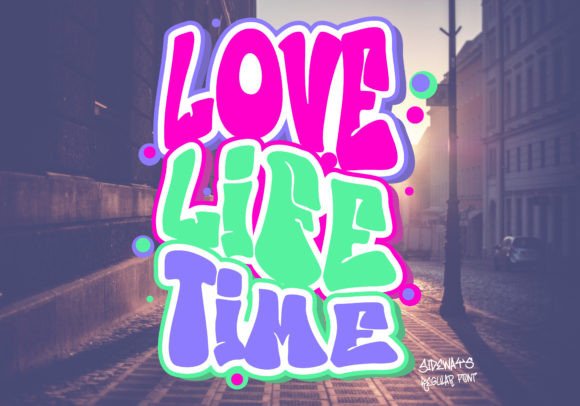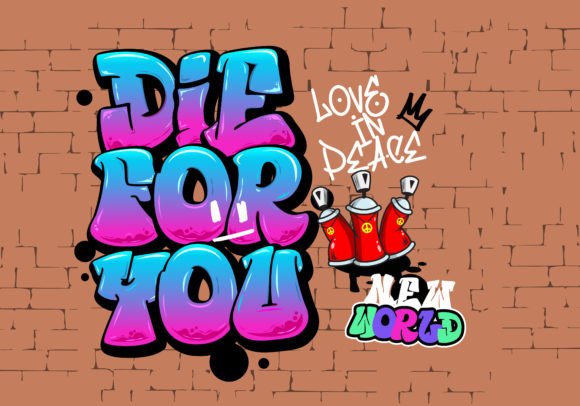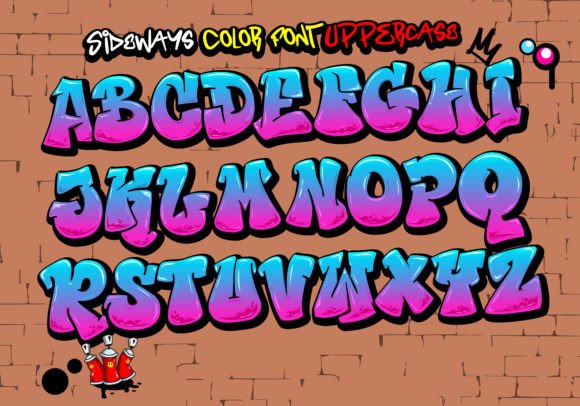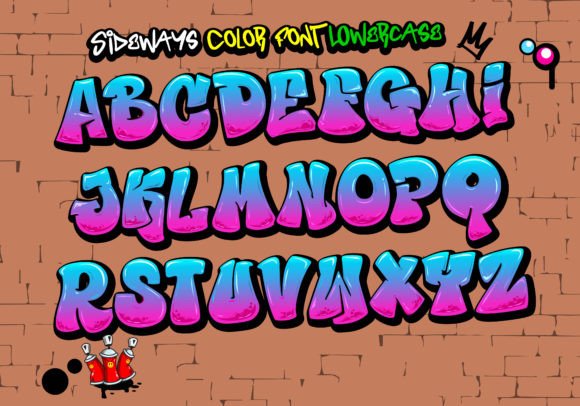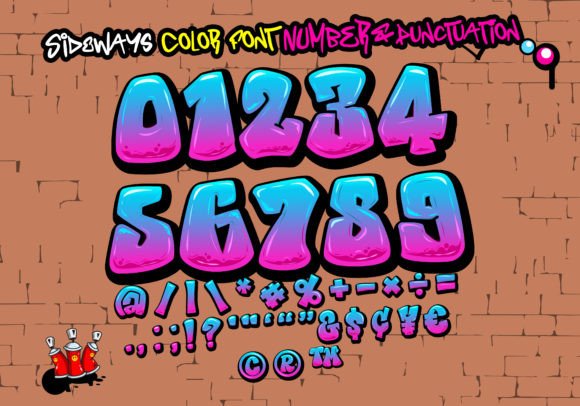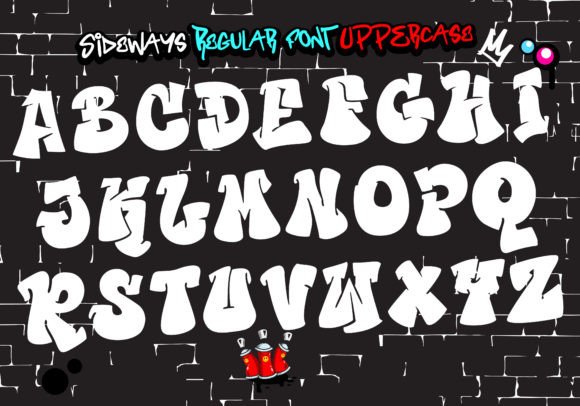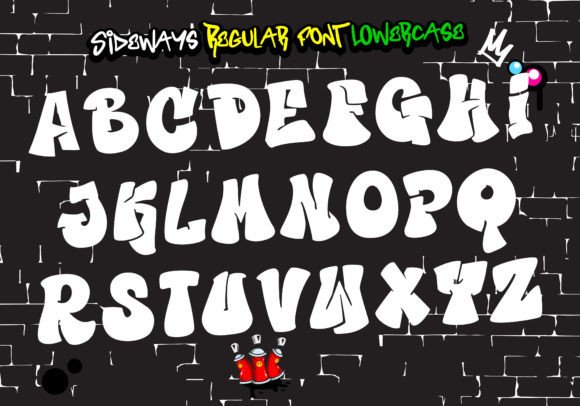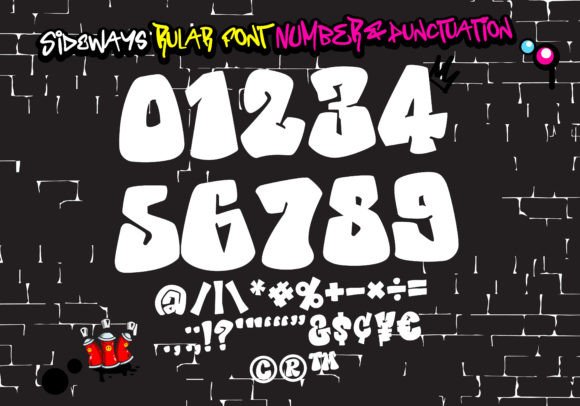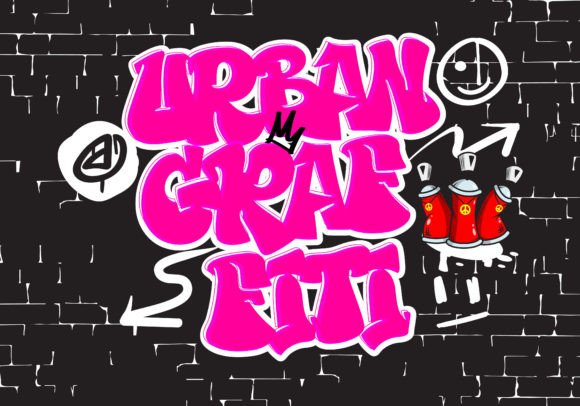
Sideways Font
About Sideways Font
Sideways is an incredibly cool and dynamic graffiti-styled display color font that brings an urban, street art vibe to your designs. With its bold and edgy letterforms, Sideways font is perfect for creating eye-catching designs that exude a sense of energy and creativity.
The unique style of Sideways font is inspired by graffiti art, adding a rebellious and urban touch to your projects. Whether you’re working on t-shirt designs, sportswear, logos, advertisements, or clothing branding, Sideways font will make a powerful statement and capture attention.
The bold and expressive letterforms of Sideways font are designed to stand out. The letters are filled with vibrant colors and intricate details, replicating the aesthetic of graffiti spray paint. Each letter has a sense of movement and flow, giving your designs a dynamic and energetic appeal.
Sideways font is particularly well-suited for designs that target a youthful and urban audience. It embraces the spirit of street art and brings it to your fingertips, allowing you to infuse your designs with a sense of urban culture and creativity.
Whether you’re designing for a fashion brand, creating promotional materials, or expressing your personal style, Sideways font will add a distinct urban flair that sets your designs apart. Embrace the rebellious and energetic nature of Sideways font, and let it unleash your creativity in the world of graffiti-inspired design.